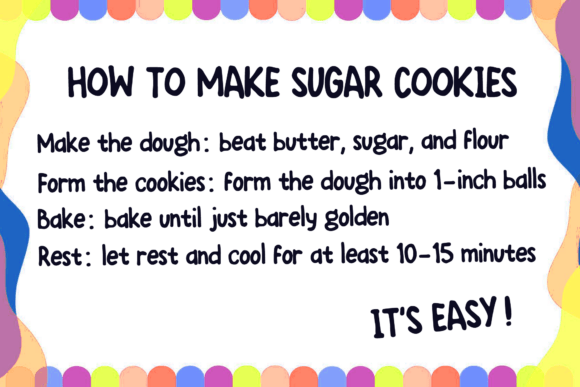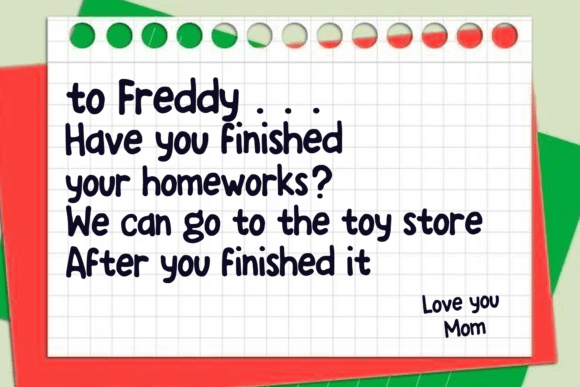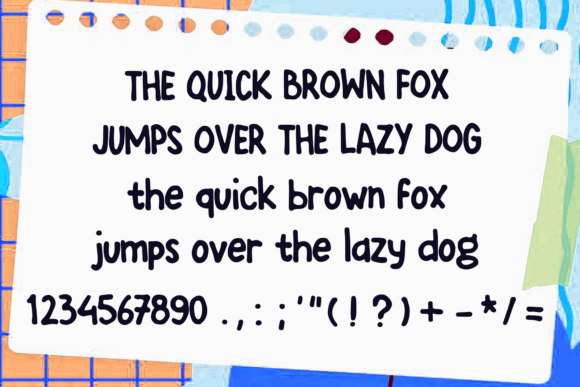
The Ultimate Design Companion: Unleashing the Power of Batagor Marker Font
Who hasn’t felt that rush of excitement when they stumble upon the perfect font for their design project? The moment when everything falls into place, and your creative vision starts to take shape? That’s exactly what happens when you discover the Batagor Marker Font.
As a versatile everyday marker font, Batagor Marker Font is designed to bring a touch of playfulness and fun to your designs. Whether you’re working on a magazine cover, a book jacket, or a t-shirt design, this font is the perfect companion to help you create something truly unique and eye-catching. With its effortless charm, Batagor Marker Font is a valuable addition to any designer’s toolkit, empowering you to break boundaries and push the limits of your creativity.
Batagor Marker Font Key Features
- Font Family: Batagor Marker Font is a modern sans-serif font, suitable for various applications such as logos, headings, and body text.
- Size: The font family includes multiple weights, ranging from Light to Extra Bold, allowing for flexibility in design and typography.
- Resolution: Batagor Marker Font is optimized for high-resolution displays, making it suitable for use in digital media, including websites, mobile apps, and social media platforms.
- Unique Characteristics: The font features a unique marker-inspired design, with bold lines and geometric shapes, giving it a distinctive and modern look.
- Language Support: The font family supports a wide range of languages, including Latin, Cyrillic, and Greek scripts, making it a versatile choice for global design projects.
Review: Batagor Marker Font
Overall, I’m quite pleased with the Batagor Marker Font. Here are some of the things that work well: ✨
- Expressive and varied letterforms create a visually appealing and human touch to the font.
- The unique, brush-like strokes add an artistic flair to text, making it suitable for creative and design-focused projects.
- The font is highly legible, even at smaller font sizes, which makes it a good choice for body text.
- The font may not be suitable for formal or professional projects that require a more traditional or corporate look.
- The varied letterforms and brush-like strokes can sometimes make the font feel inconsistent or unpredictable.
- The font may not be as easily readable on digital screens, due to its unique character set and design.
In conclusion, I think the Batagor Marker Font is a great choice for designers who are looking for a creative and artistic font for their projects. While it may not be suitable for all types of projects, its unique features and high legibility make it a valuable addition to any font collection.
To get the most out of Batagor Marker Font, try the following:
- Use it for titles and headings to add a creative touch.
- Combine it with other fonts for a bold and playful design.
Batagor Marker Font is commonly used for:
- Children’s product packaging.
- Event and party invitations.
Alternatives to Batagor Marker Font for Designers
Great Vibes is a modern, elegant script font that is perfect for creating a sophisticated and stylish look. It features connected letters and a fluid, cursive feel that makes it ideal for use in titles, headings, and other display text.
Great Vibes Font is more elegant and refined compared to Batagor Marker Font, which has a more playful and casual feel. While Batagor Marker Font is great for casual and informal designs, Great Vibes Font is better suited for formal and professional projects.
Pacifico is a beautiful, elegant script font that is inspired by the Pacific coast of Mexico. It features a relaxed, casual feel that makes it perfect for use in beach-themed designs, travel brochures, and other projects that require a laid-back vibe.
Pacifico Font is similar to Batagor Marker Font in terms of its casual and relaxed feel, but it has a more refined and sophisticated look. While Batagor Marker Font is great for informal designs, Pacifico Font is better suited for projects that require a more polished and refined look.